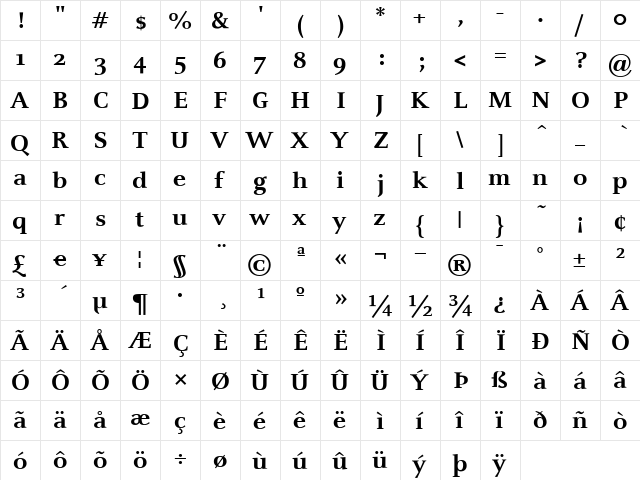
CelesteST Bold
Design Context for CelesteST Typeface
CelesteST takes a measured approach to typography — its balanced proportions and neutral character make it a reliable workhorse for both digital and print work. The heavy weight commands attention and anchors typographic hierarchies.